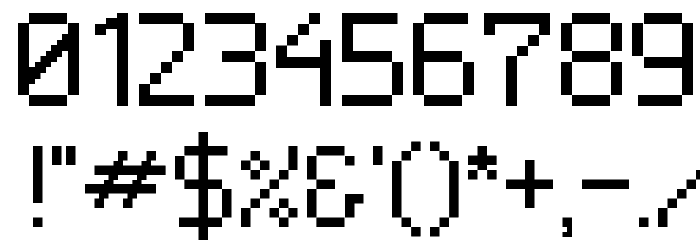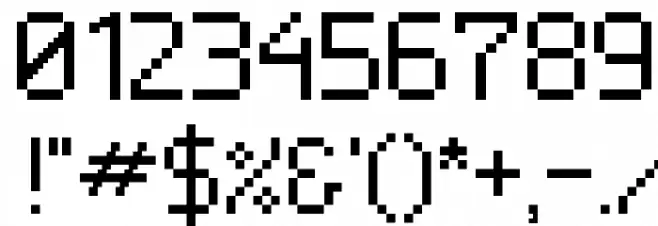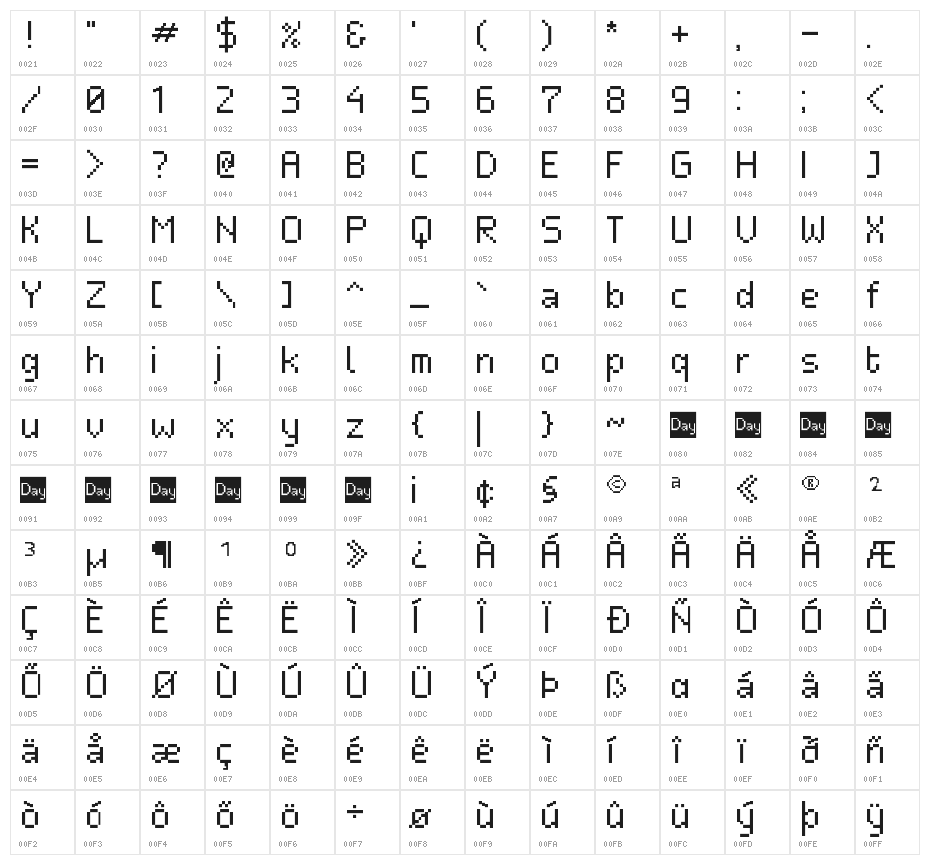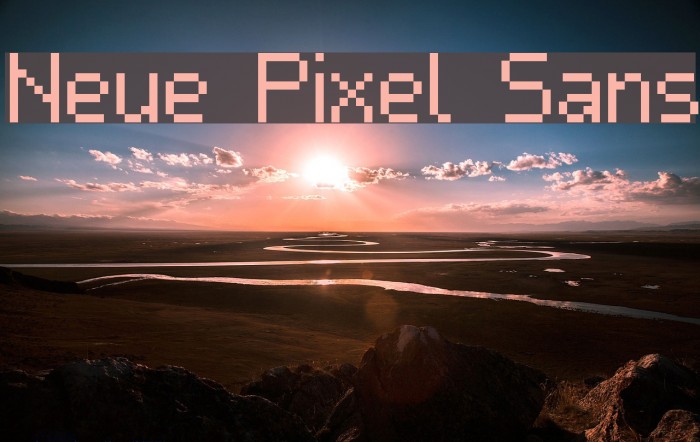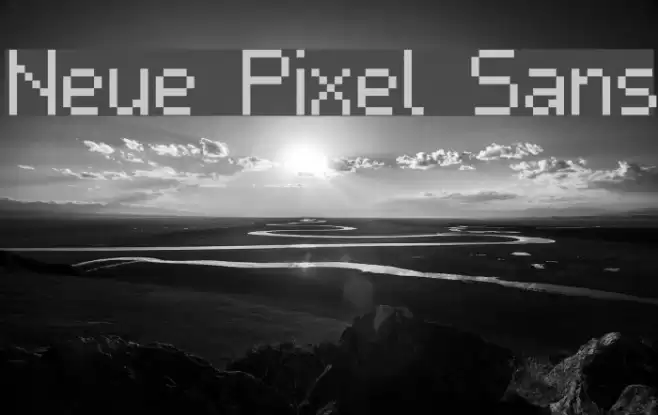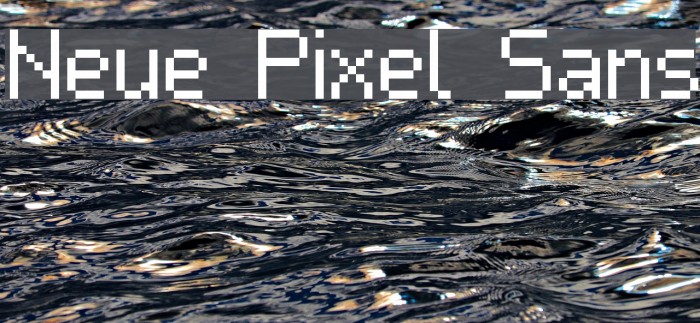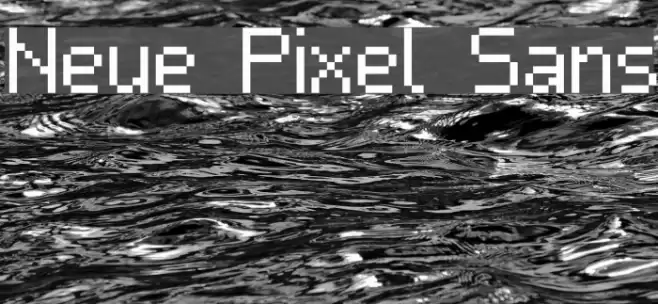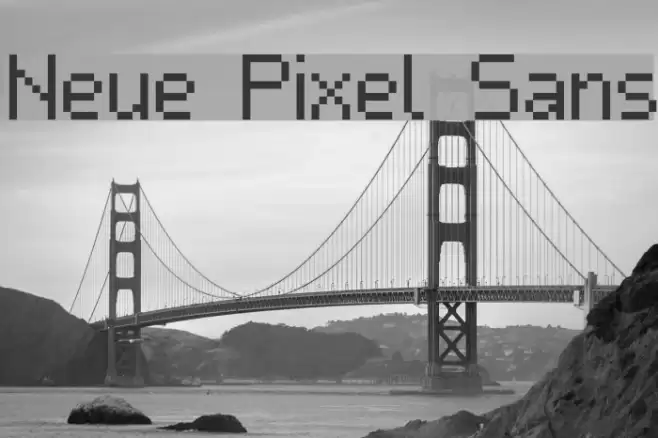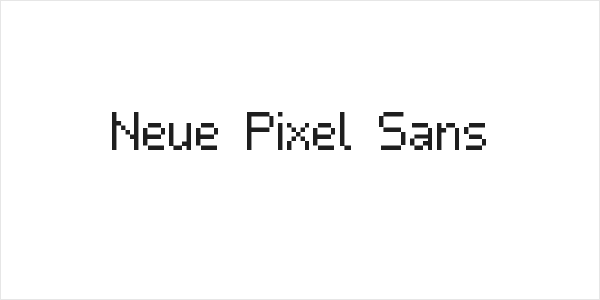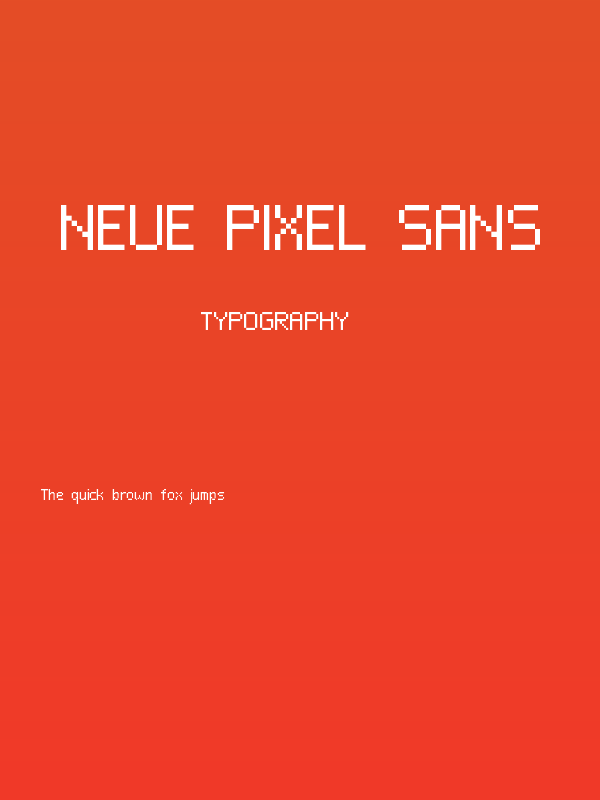
Neue Pixel Sans Font
Neue Pixel Sans Description
This font features a pixelated, grid-like structure reminiscent of early digital displays and retro video games. Each character is composed of uniform square blocks, giving it a distinct, geometric appearance. The uppercase and lowercase letters maintain a consistent height, with minimal variation in stroke width, emphasizing a monospaced design. The numerals and special characters follow the same pixelated pattern, ensuring uniformity across the entire typeface. Its simplicity and clarity make it highly legible, even at smaller sizes, while the nostalgic aesthetic adds a playful, vintage touch.
| Use Case | Logos, Headlines, Digital displays |
| Proposed Projects | Ideal for retro-themed designs, video game graphics, digital art projects, and any creative work that requires a nostalgic, tech-inspired look. |